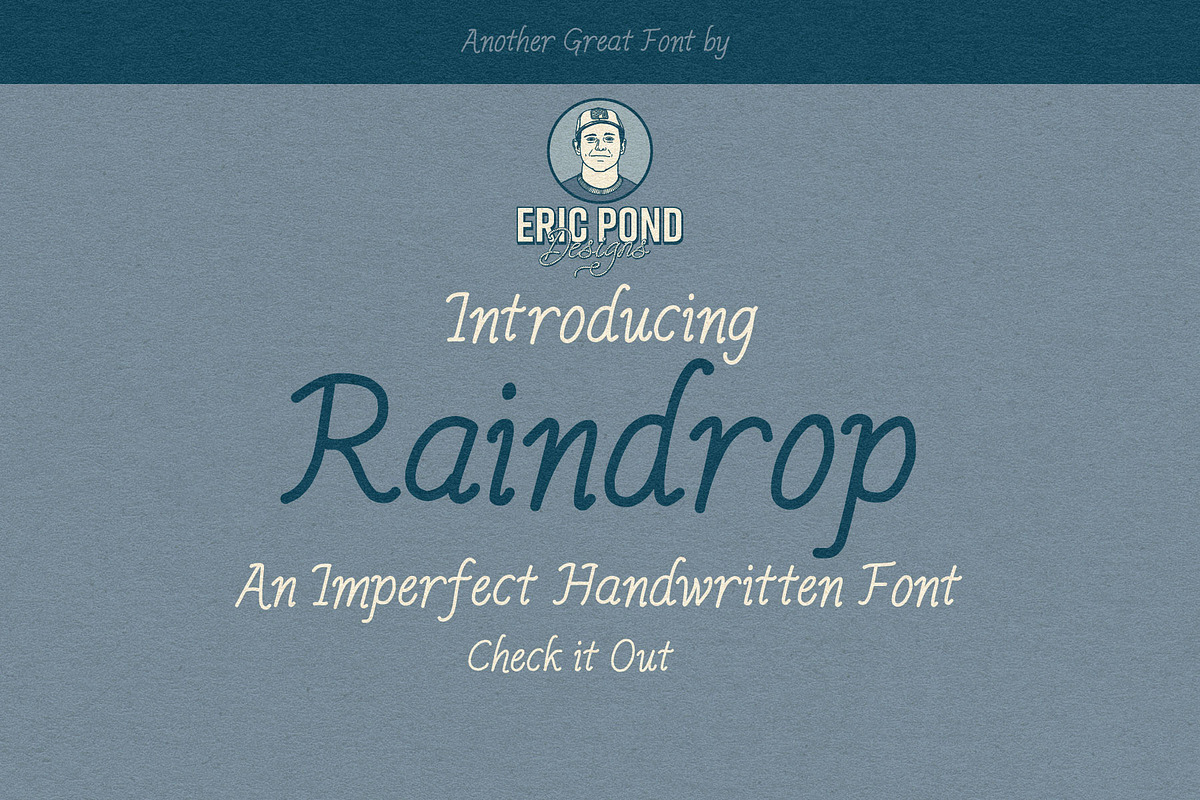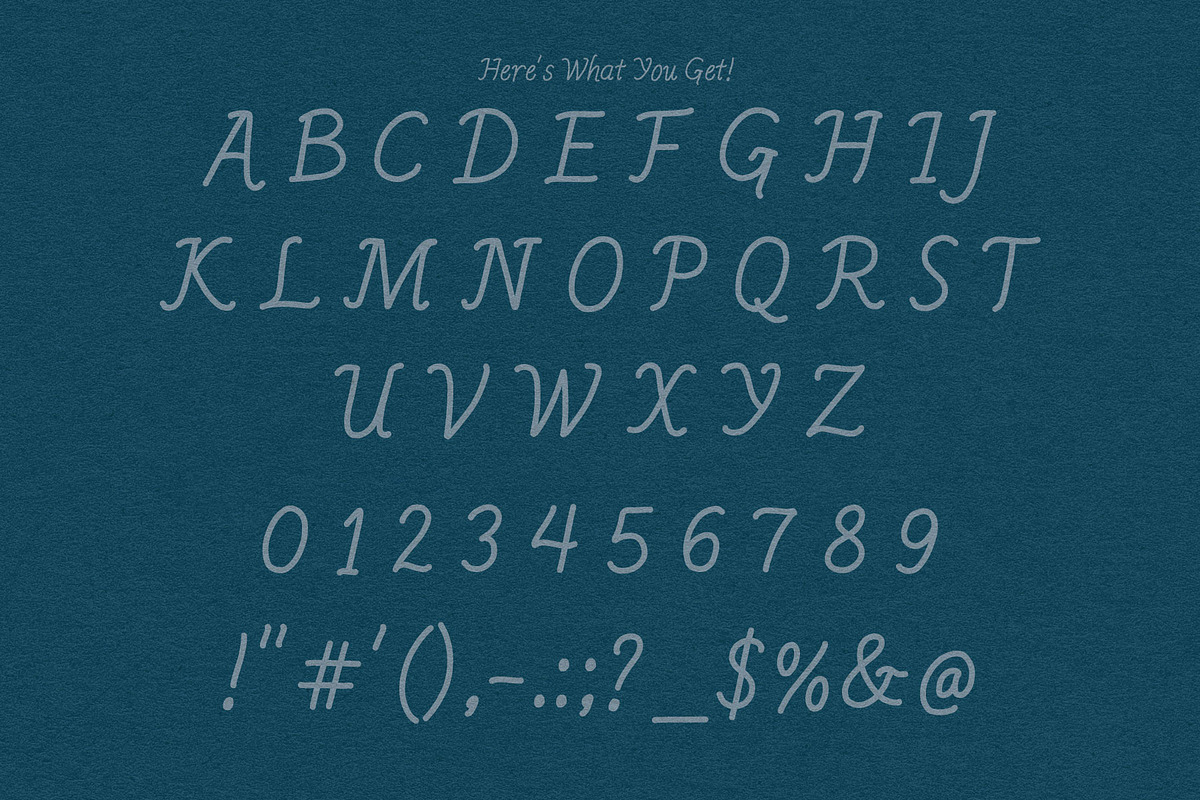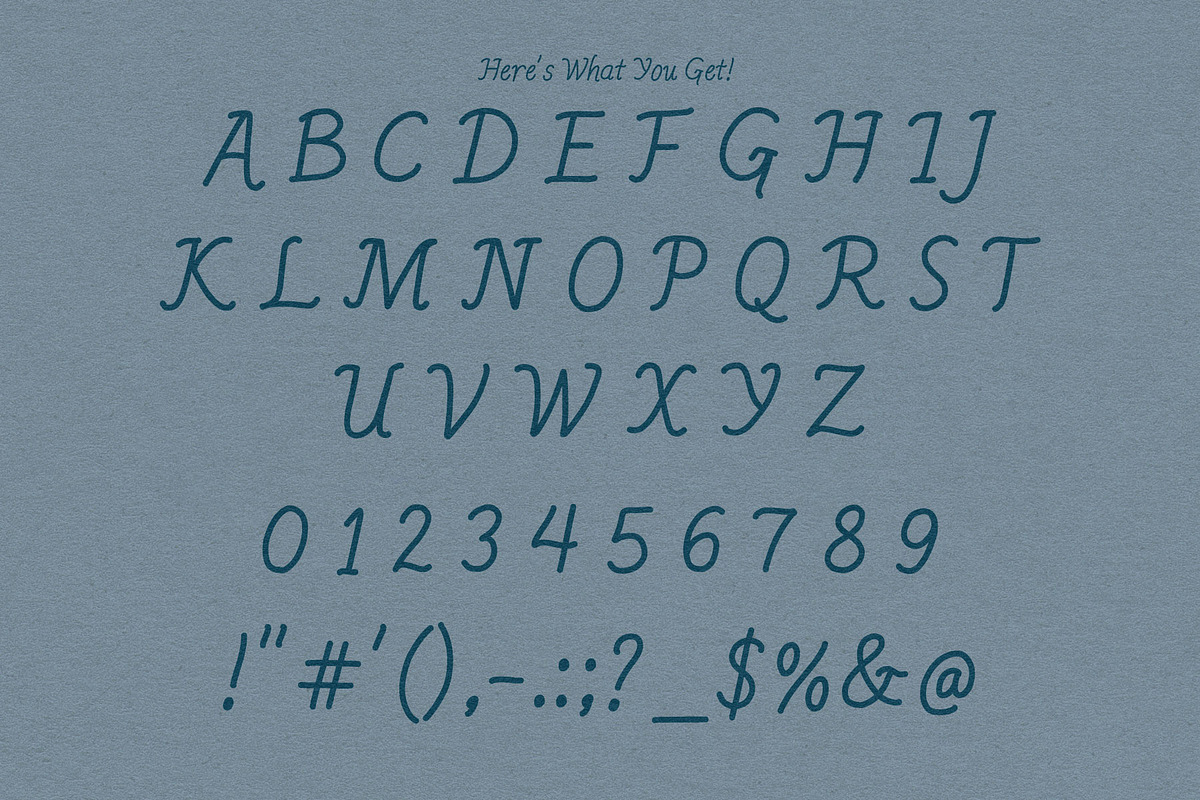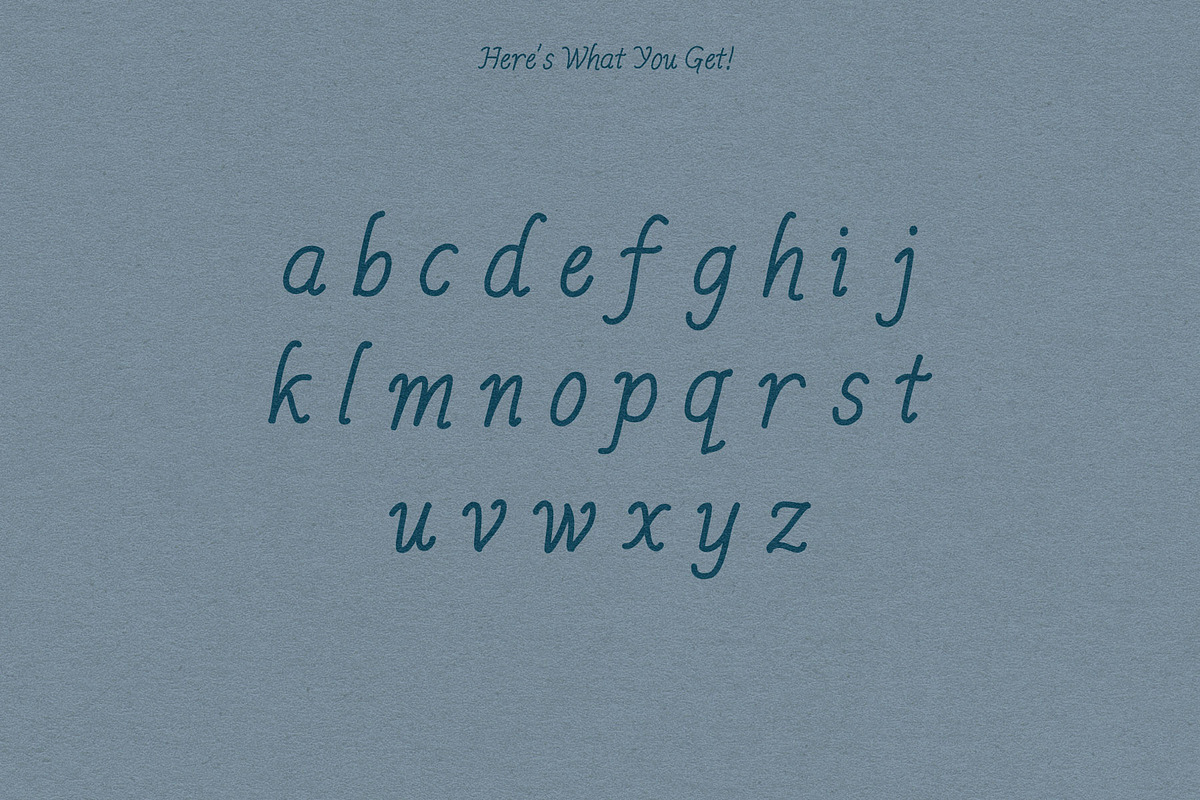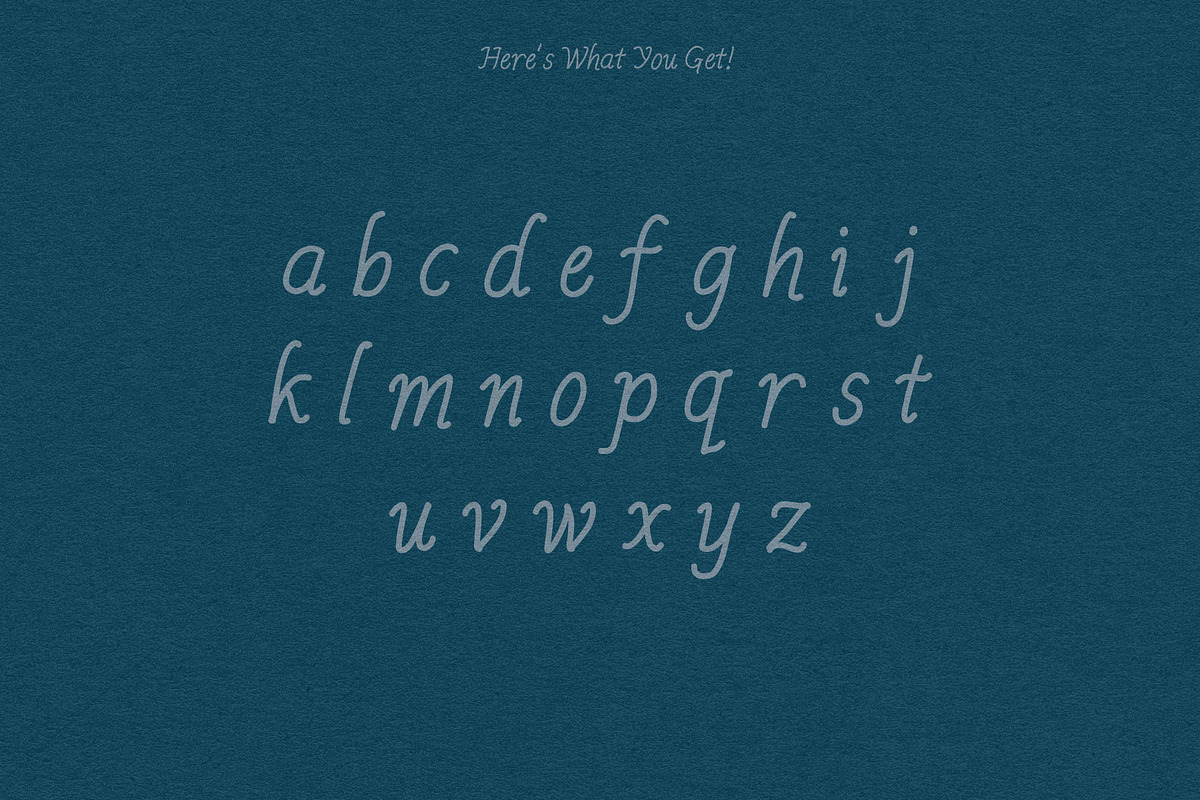
Raindrop by Eric Pond Designs
Introducing Raindrop, an Imperfect, Handwritten font by Eric Pond Designs! This font features uppercase, lowercase, numbers and some punctuation.